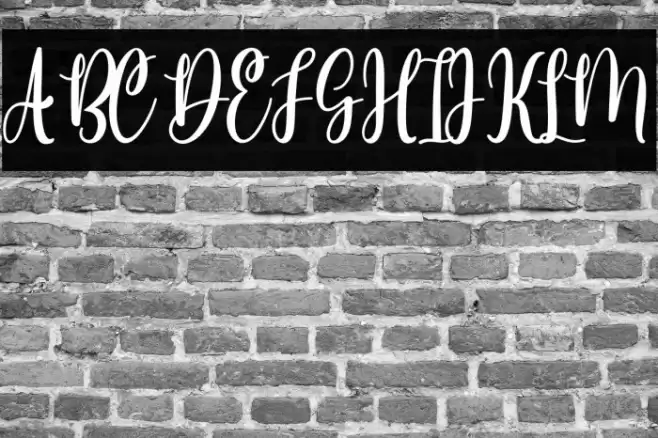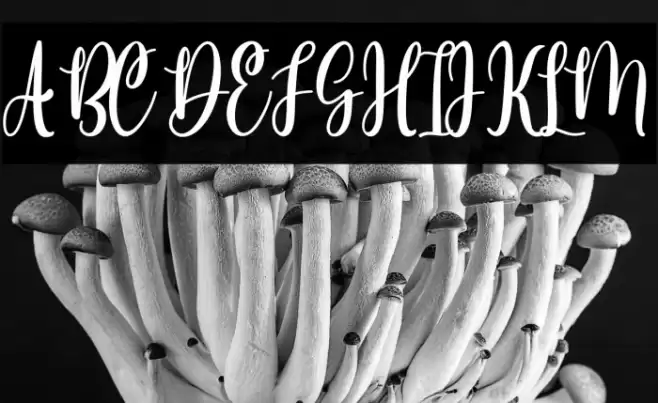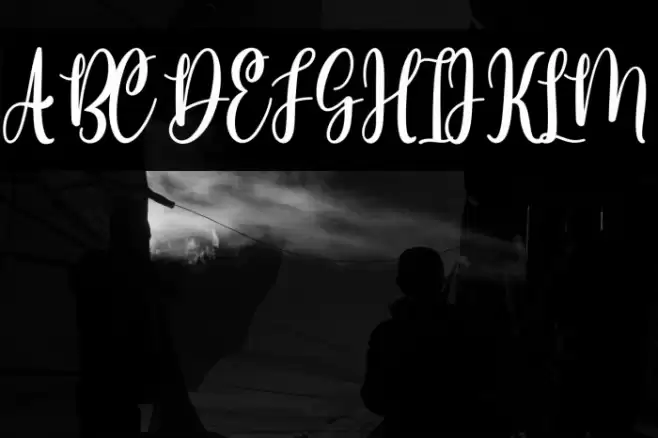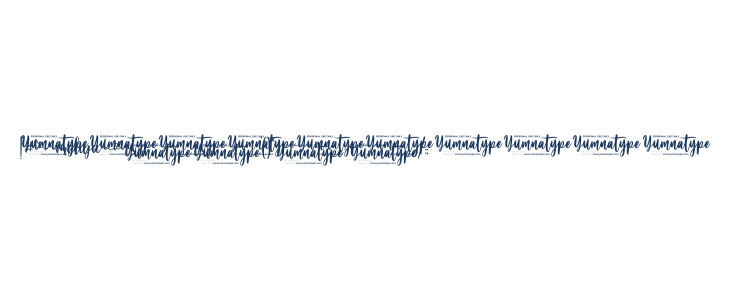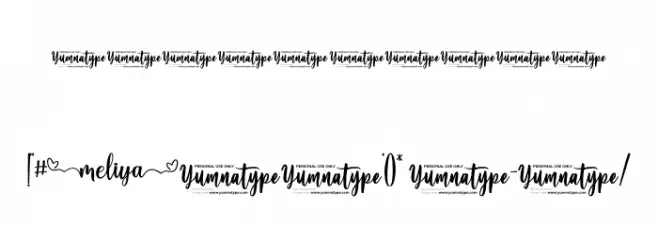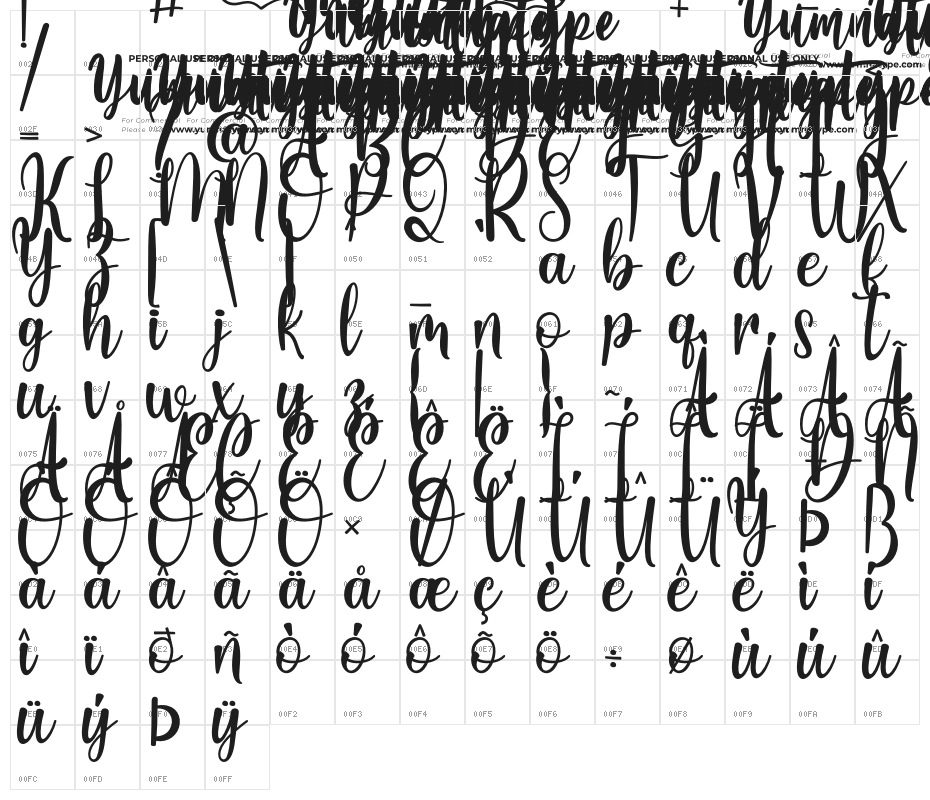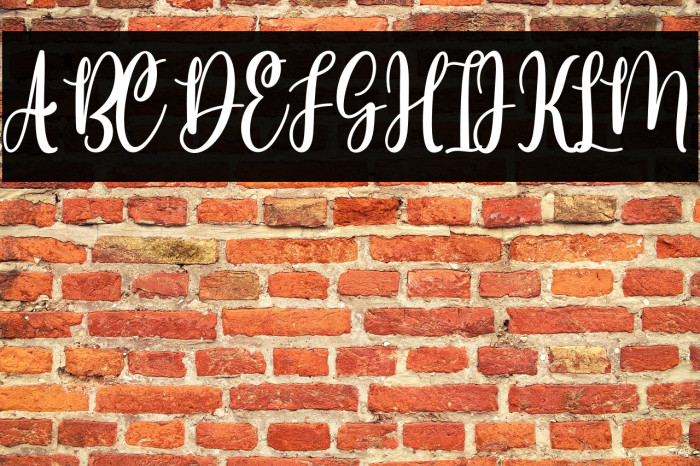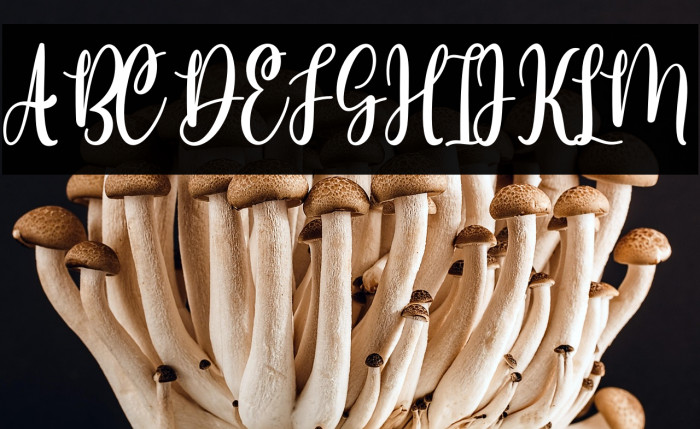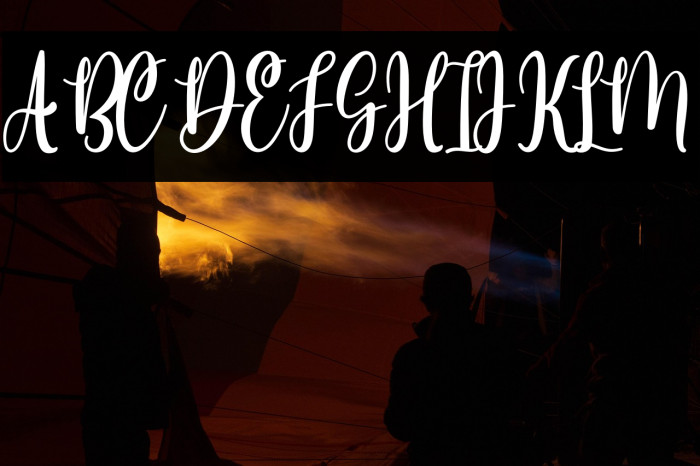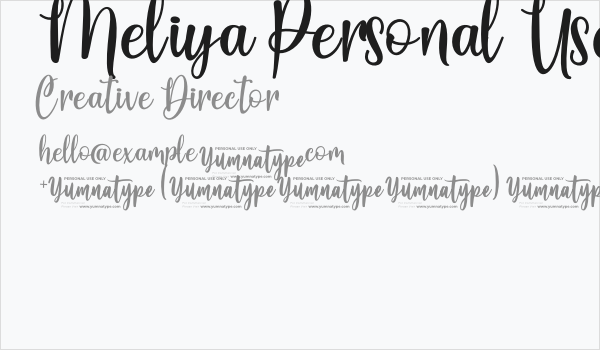
Meliya Personal Use Font
Meliya Personal Use Description
This font features a flowing, handwritten style with elegant curves and a playful yet sophisticated appearance. The uppercase letters are bold and expressive, with a distinct flair that adds personality to each character. The lowercase letters maintain a consistent flow, creating a harmonious balance between each letterform. The font includes a full set of numerals and a selection of special characters, making it versatile for various design needs. Its unique style is perfect for adding a personal touch to any project, while still maintaining readability and charm.
A playful, handwritten font with elegant curves and bold, expressive characters from Uncategorized fonts.
- Font: Meliya Personal Use
- Proposed Projects: Ideal for wedding invitations, greeting cards, branding, and social media graphics.
- Use Case: Logos, Headlines, Invitations